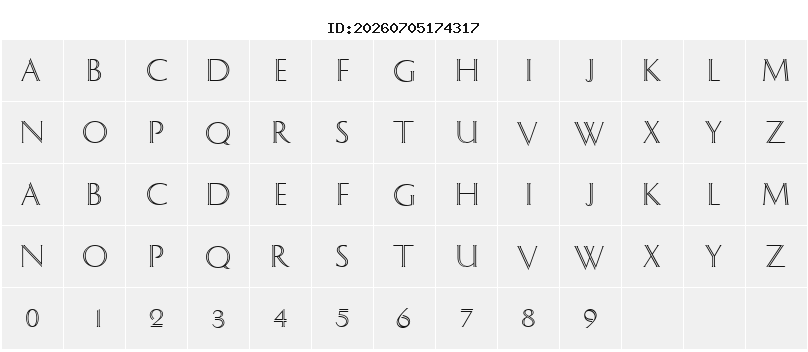
Dolphian Preview
• Font Name: Dolphian
• Full Font Name: Dolphian
About Dolphian.ttf
Dolphian.ttf is a modern, elegant sans-serif font designed for ultimate readability and visual harmony. Perfect for branding, headlines, web design, and print materials.